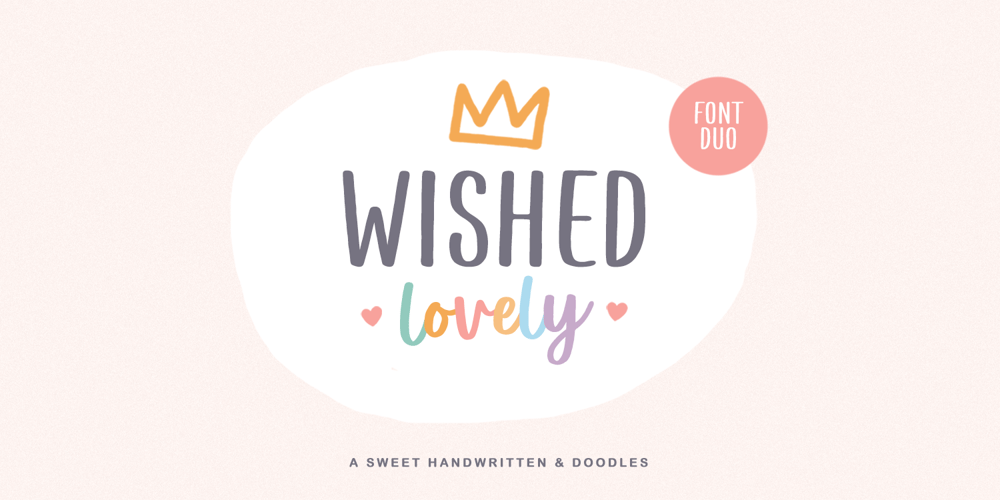
Wished Lovely Font Family was designed by Andre Bima Falah Rabbani and published by Atharuah Studios. Wished Lovely contains 3 styles and family package options. Wished Lovely! A sweet handwritten font duo that will add fun to your creativity. These two fonts consist of a charming all-caps font and a sweet handwritten script font for the perfect and fun blend of your content.Wished Lovely has also added 26 doodles to add interest to your content in separate files.Each font file includes uppercase, lowercase, numbers, punctuation, and multilingual support.That’s it! I hope you enjoy it.Feel free to comment if there are issues or queries.You can also say hi to me on Instagram: https://www.instagram.com/atharuah_Thank You!